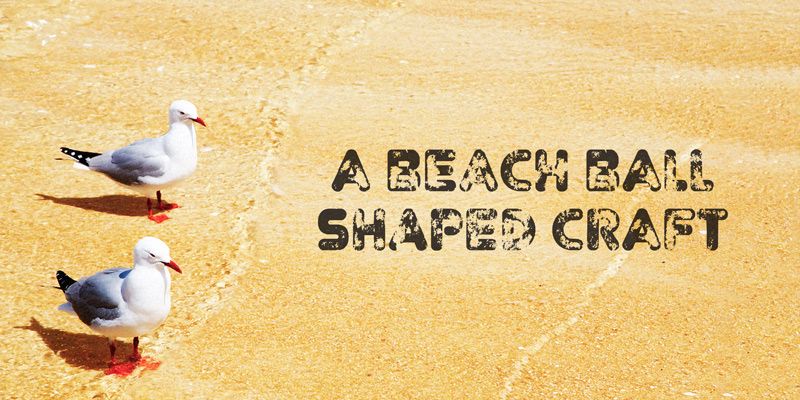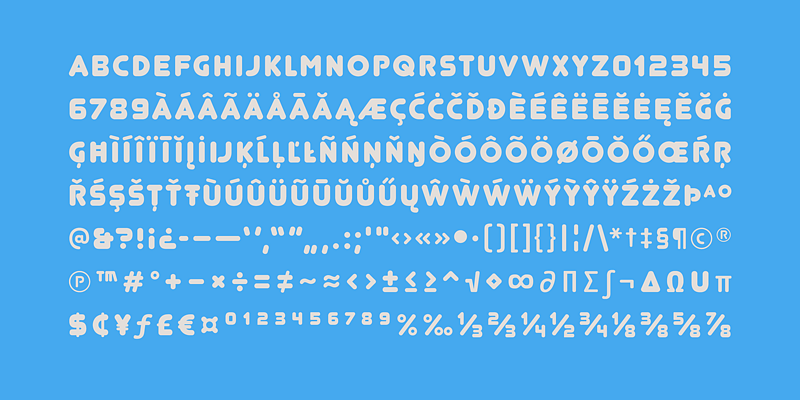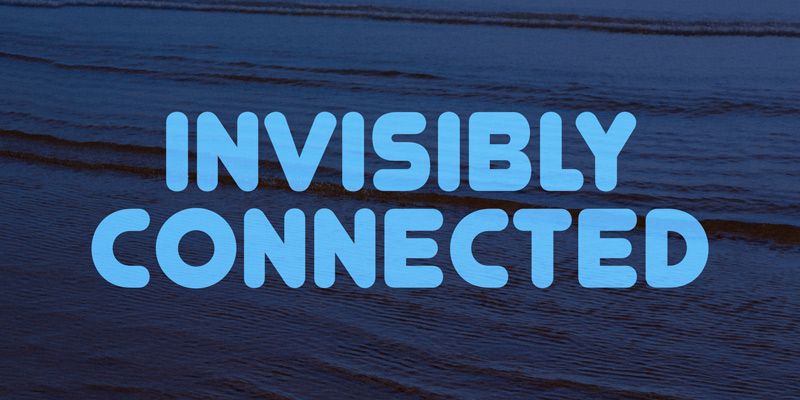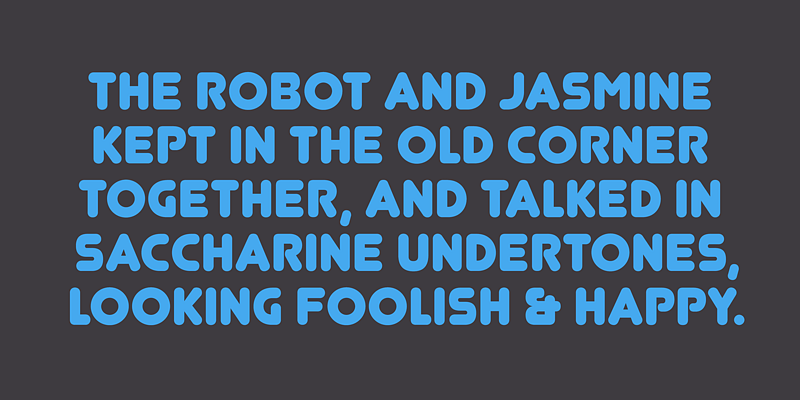
Junegull is a rounded all-caps display face with a curious mix of softness and technology. Its inflated shapes make a title inviting, while the orderly construction keeps it from feeling like casual handwriting. Regular carries that cheerful presence cleanly through product names, science activities, signs, and compact headlines; Beach gives the same idea a rougher, weathered surface. The combination suits electronic toys, hands-on exhibits, and science kits that should make technology feel approachable and fun to explore.